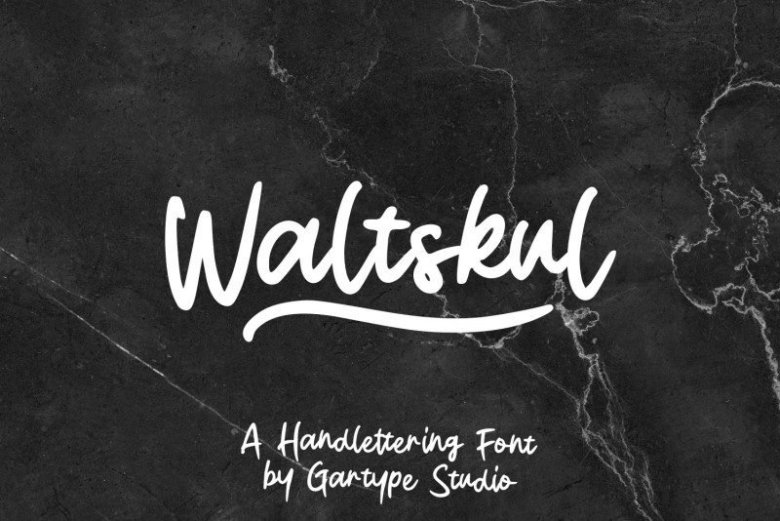
Waltskul Script Font
Introducing Waltskul a playful Handwritten script font from us.Waltskul comes with alternate and Swashes to make design lookin so good !.Waltskul is very suitable for many project such as logo,poster,flyer,quote,advertising,and many more.Not just that Waltskul also support multilingual features.Grab it fast .